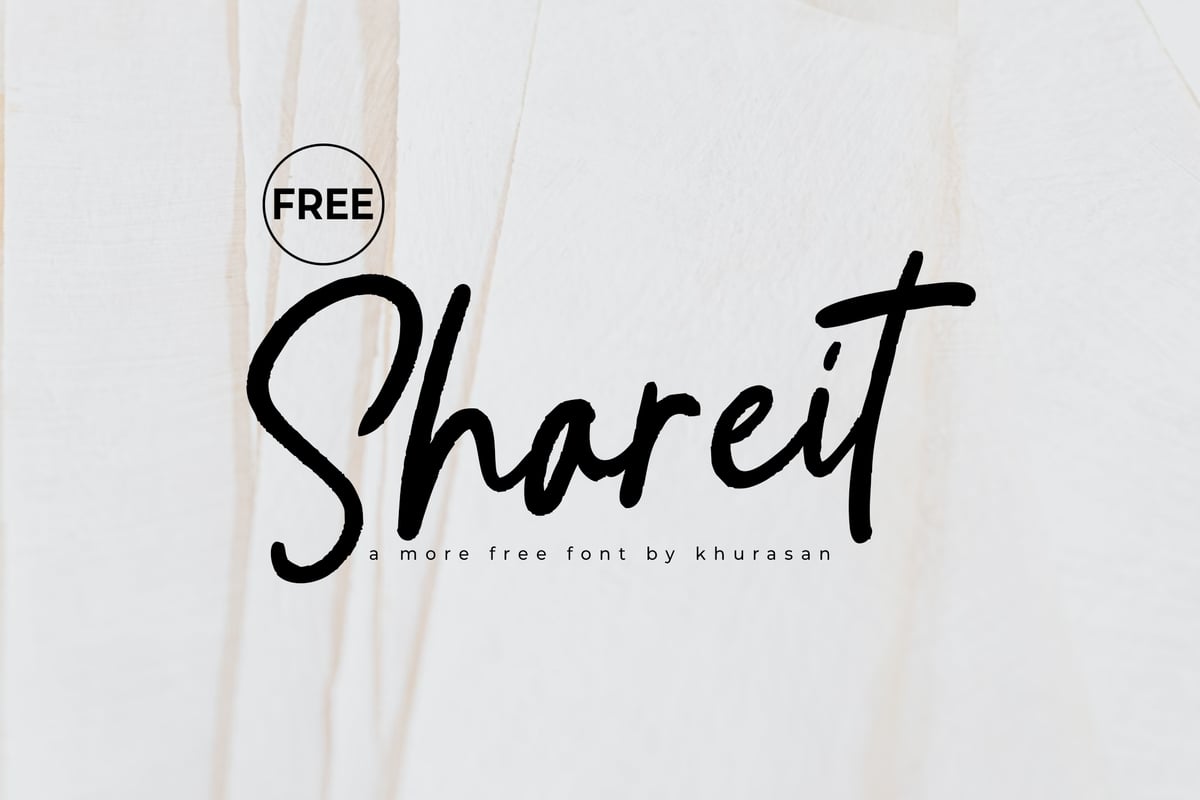
Free Shareit- Free Handwriting Script Font
Meet Shareit - the playfully confident handwritten font that brings effortless charm to every design project.
Looking for a typeface that doesn't take itself too seriously? Shareit is your perfect solution! Inspired by casual doodles and bold marker sketches, this handcrafted font delivers a relaxed, authentic feel to any creative work. Whether you're designing birthday cards or creating trendy apparel, Shareit makes everything look naturally effortless.